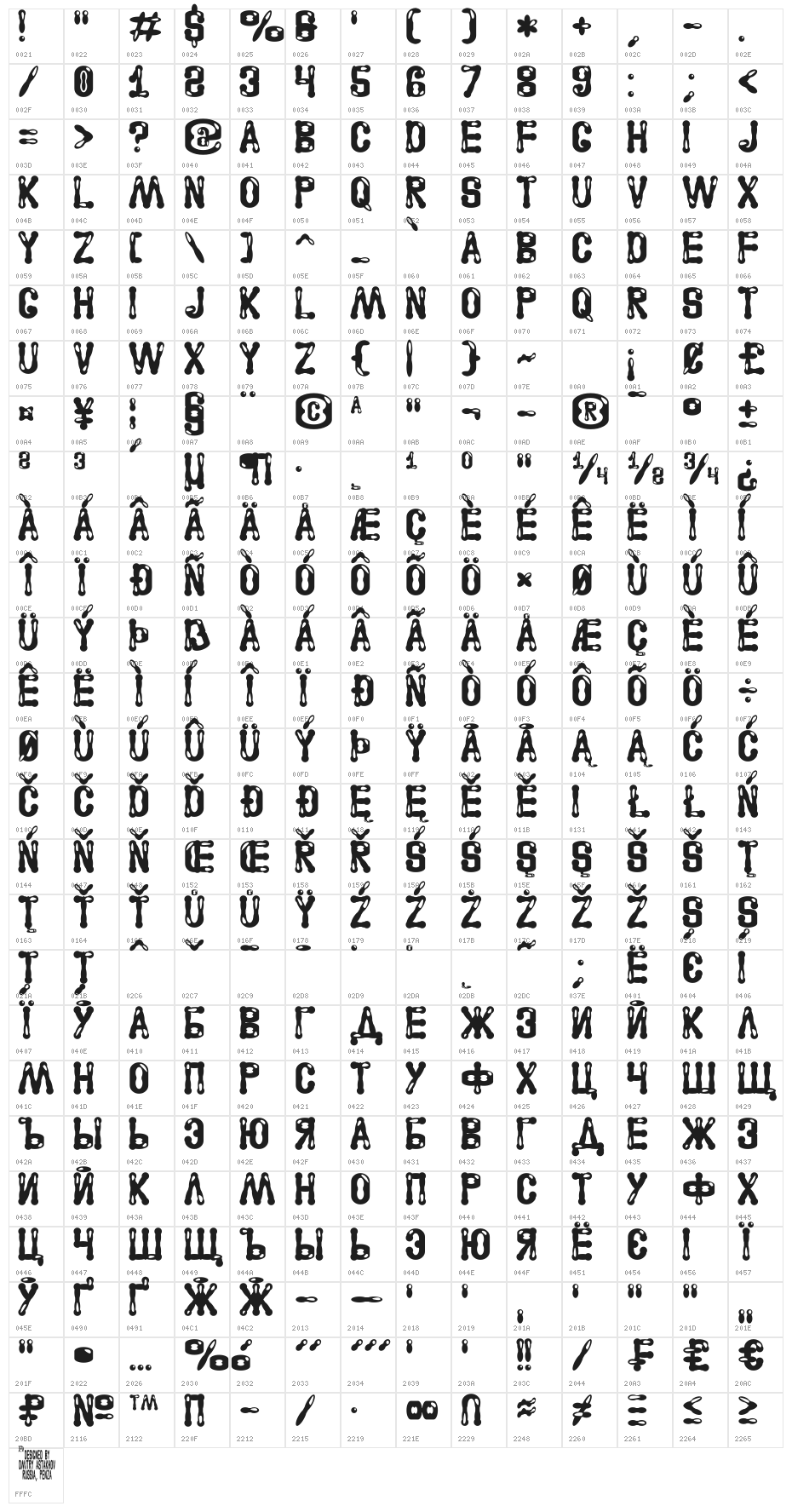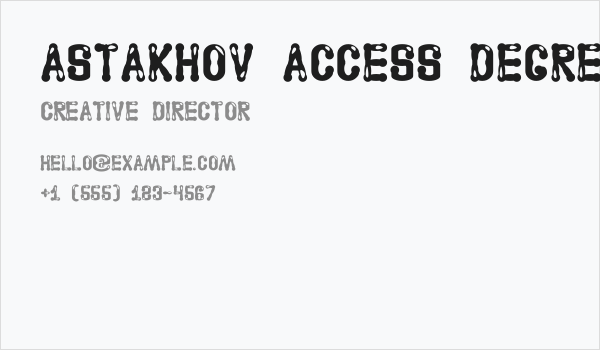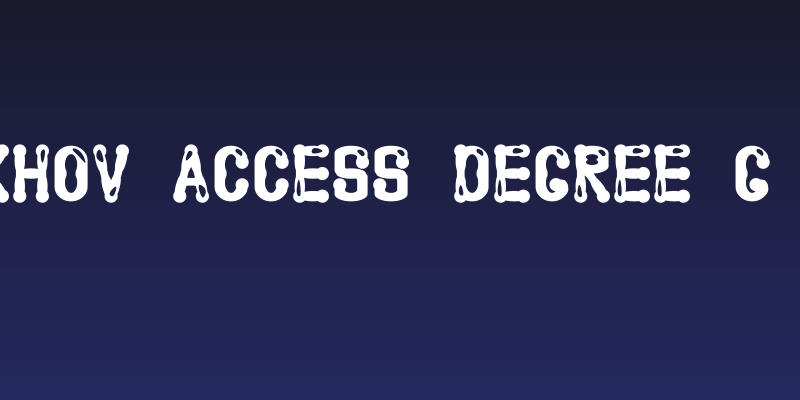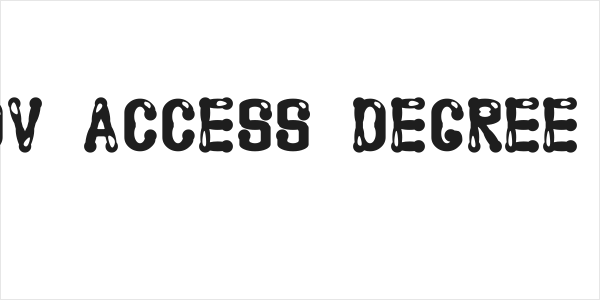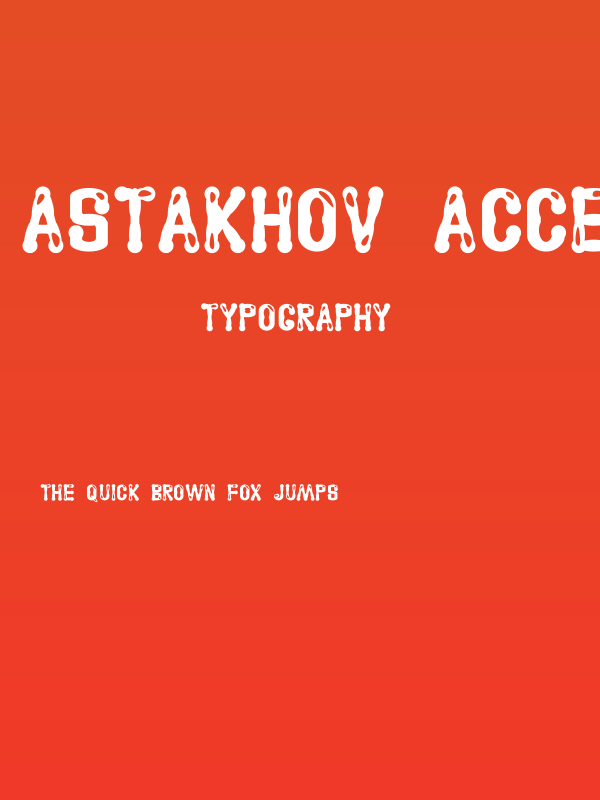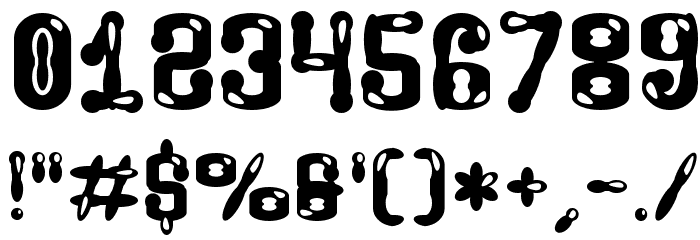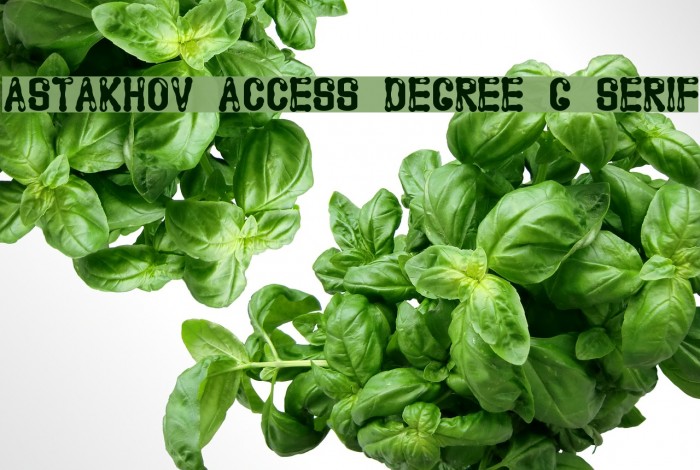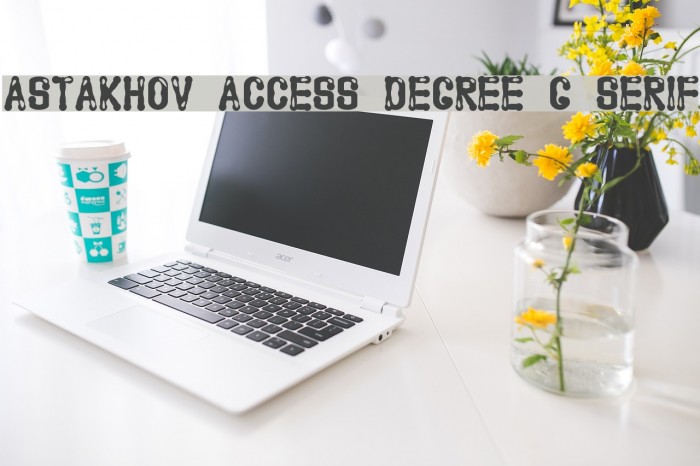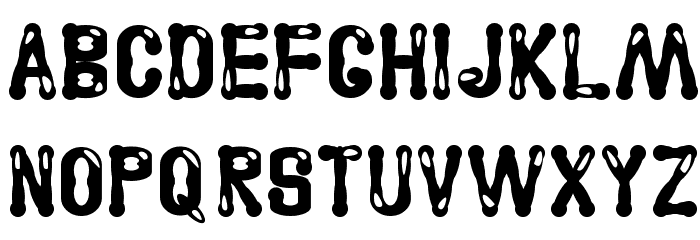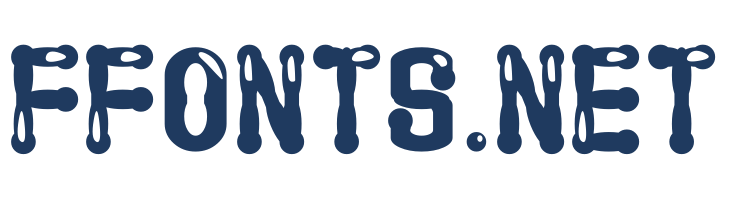
Astakhov Access Degree G Serif Font
Astakhov Access Degree G Serif Description
This font features a unique and bold design with a playful, almost liquid-like appearance. The characters are heavily stylized, with thick strokes and irregular shapes that give them a dynamic and eye-catching look. The uppercase and lowercase letters maintain a consistent style, with rounded edges and varying thickness that create a sense of movement. The numbers and special characters follow the same design principles, ensuring a cohesive look across all glyphs. This font's distinct style makes it stand out, offering a creative and artistic flair that is perfect for projects needing a strong visual impact.